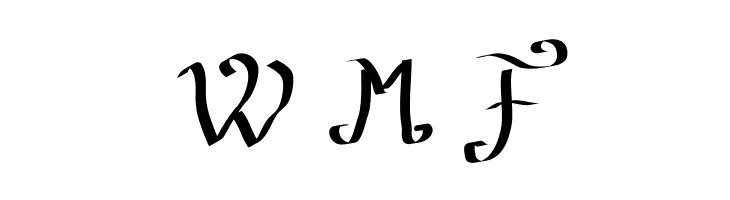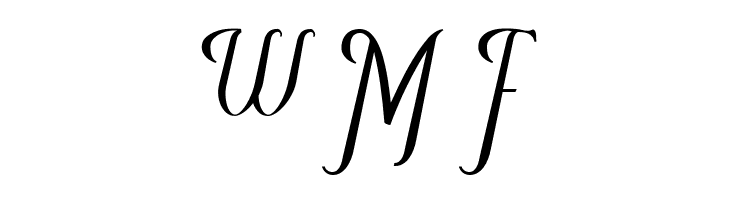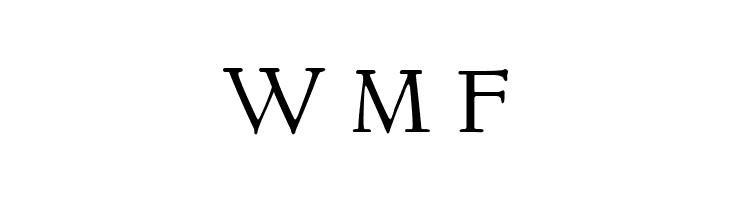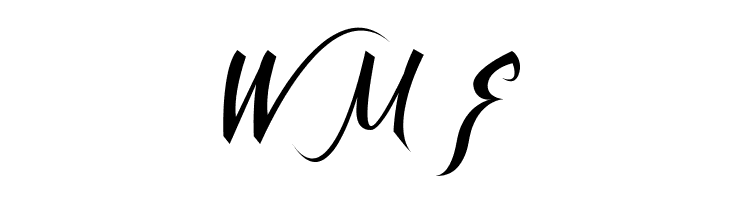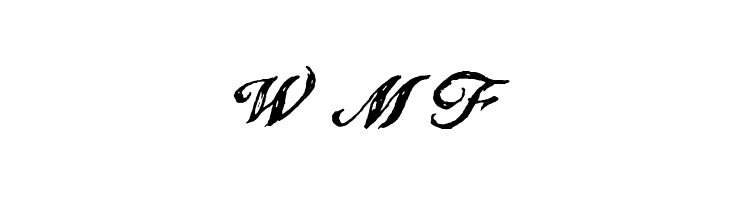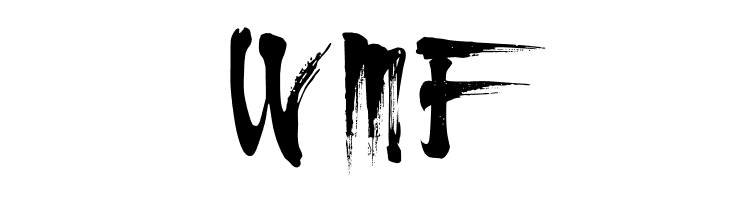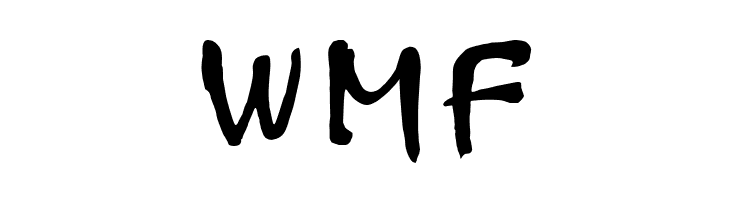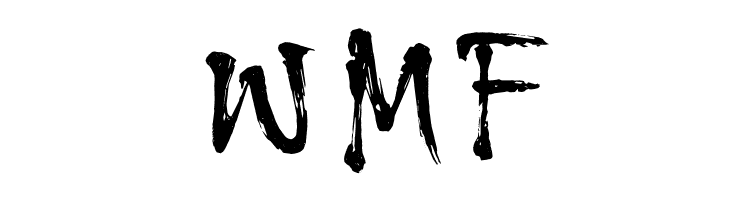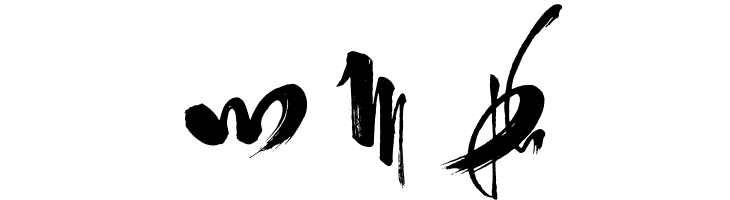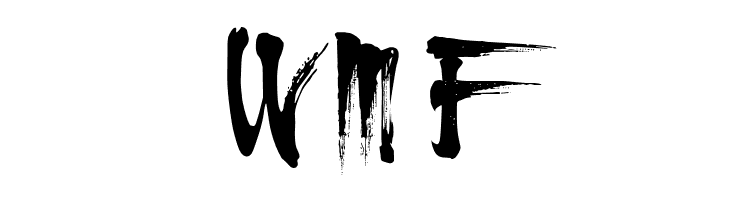
An ornate, calligraphy-inspired font with decorative flourishes.
A classic, elegant font with a calligraphic influence.
A classic serif font with elegant, flowing lines and a calligraphic touch.
An elegant, calligraphic font with high contrast and ornate details.
An elegant, flowing script font with a calligraphic touch.
A bold, expressive calligraphic font with dynamic strokes and artistic flair.
A dynamic, calligraphic font with bold, sweeping strokes and a modern flair.
A dynamic, calligraphy-inspired font with bold, expressive strokes.
A dynamic, expressive calligraphic font with bold, sweeping strokes.
A dynamic, brush-style font with bold, expressive strokes and a calligraphic flair.